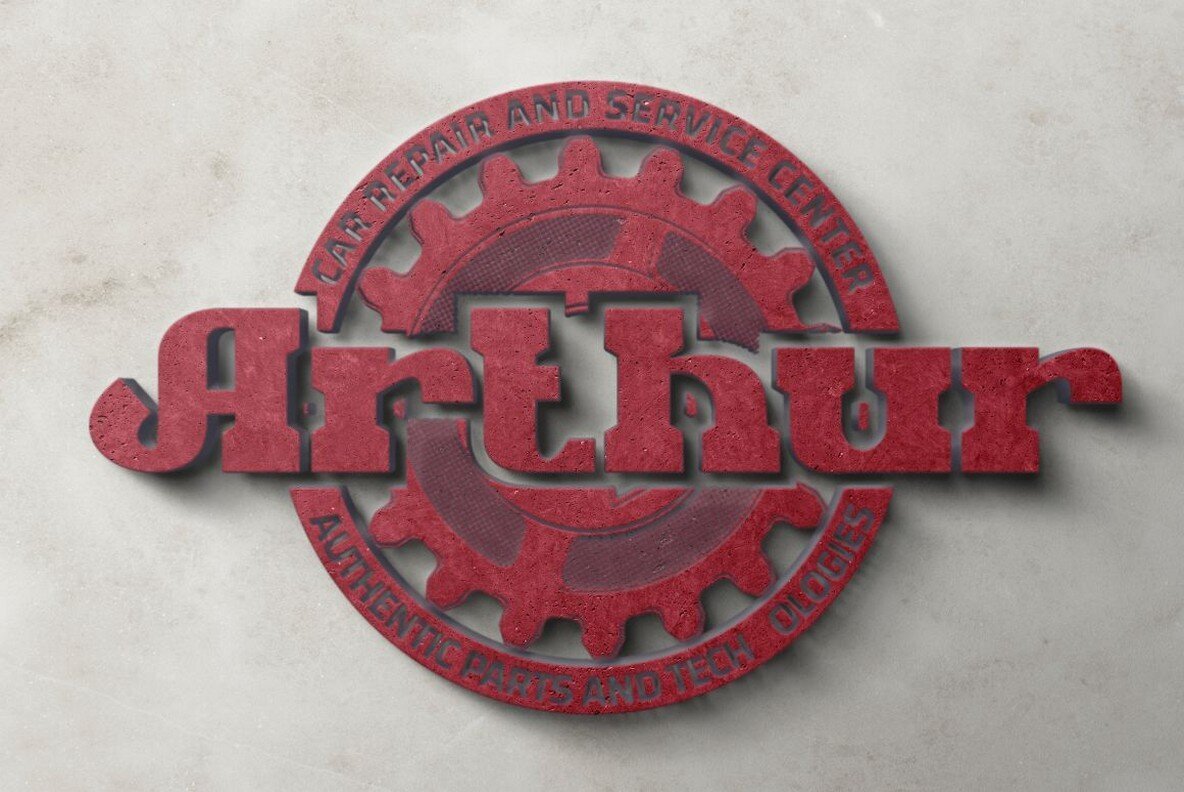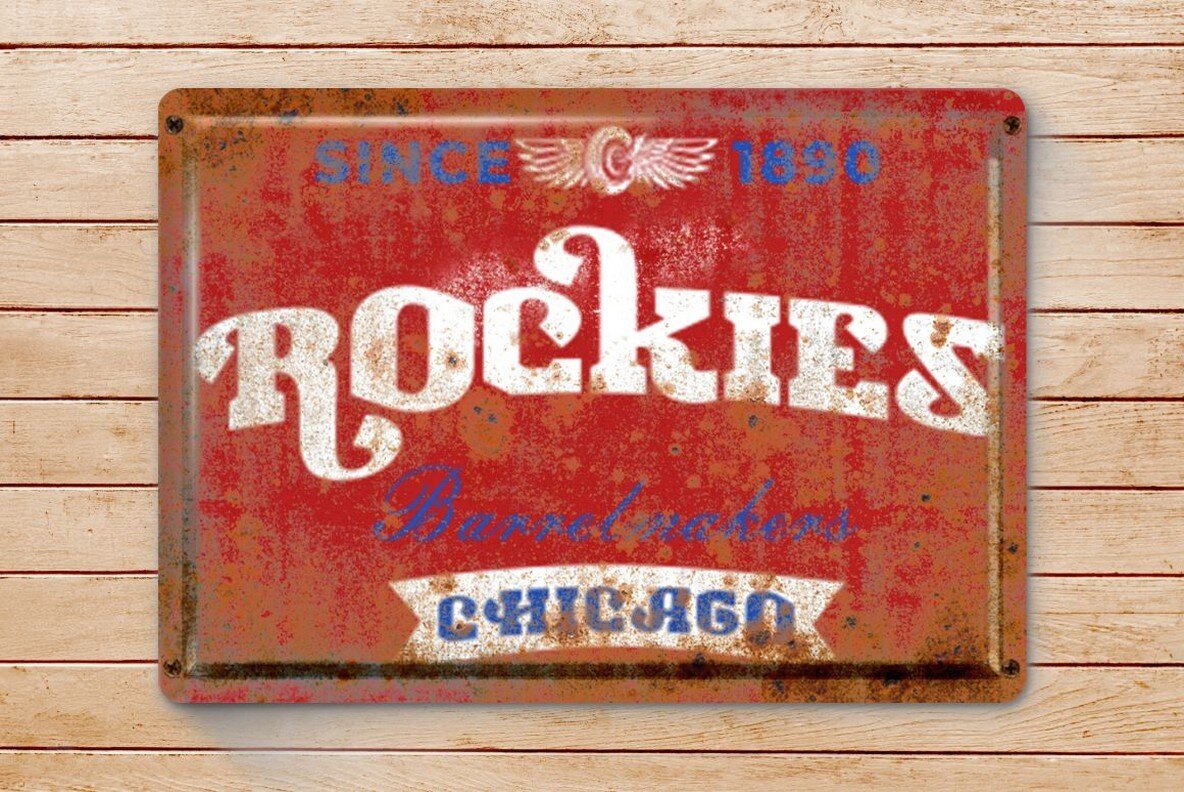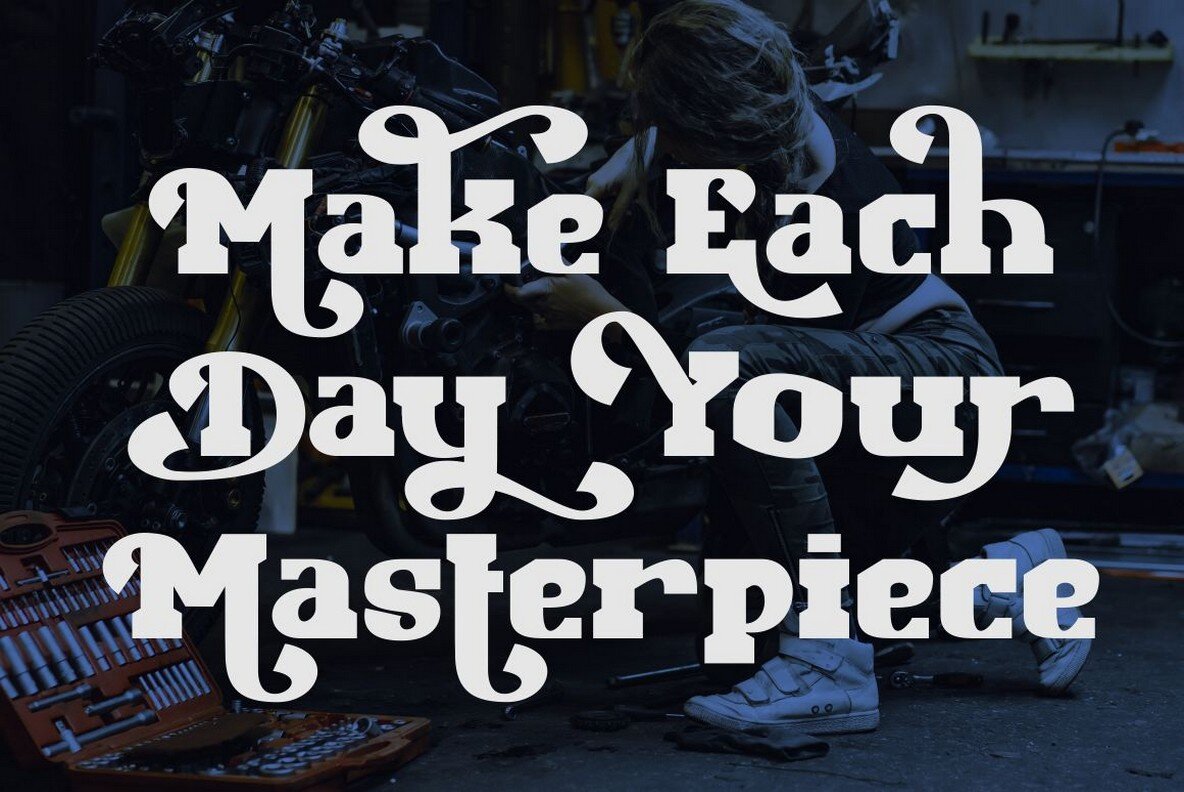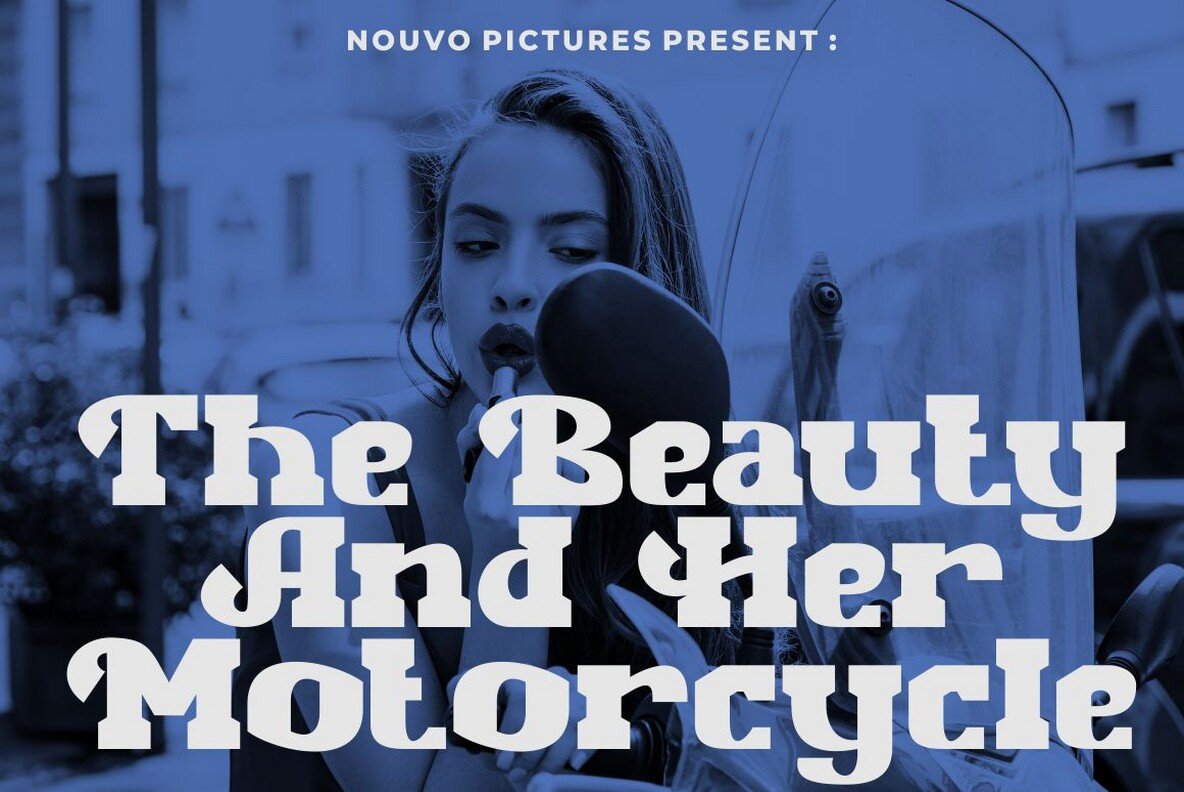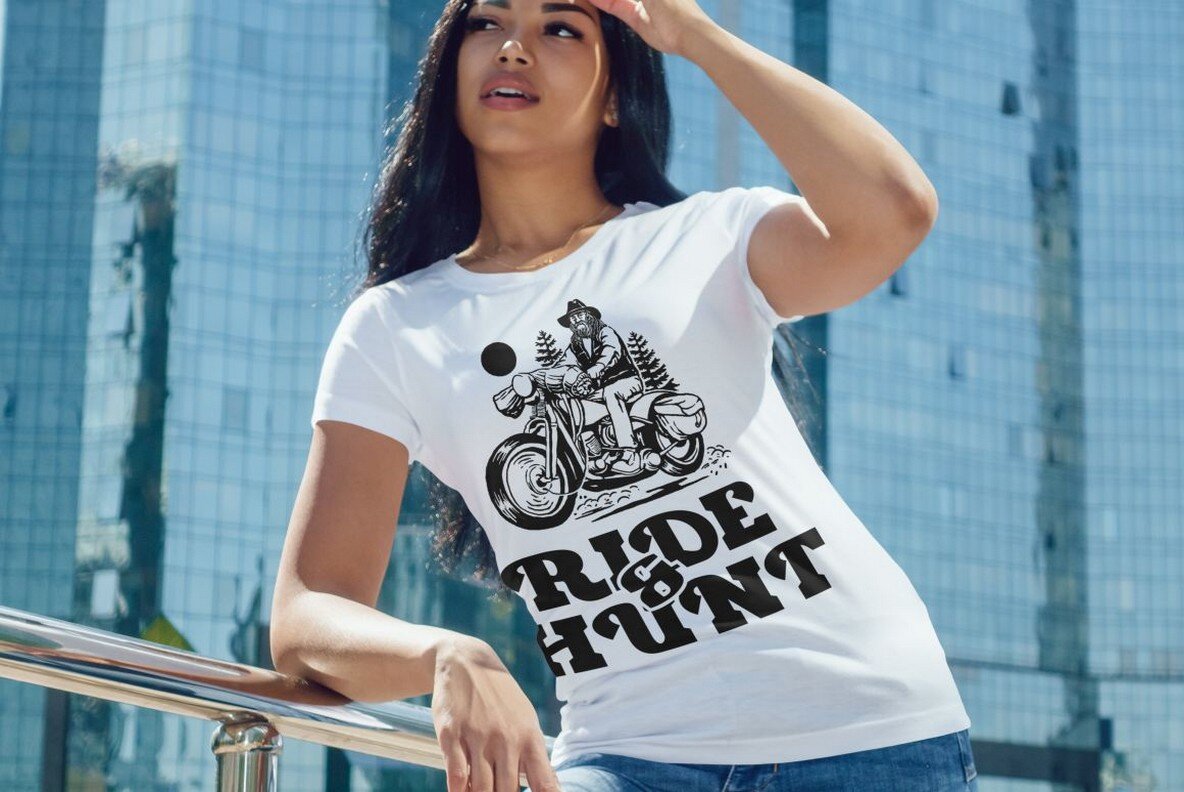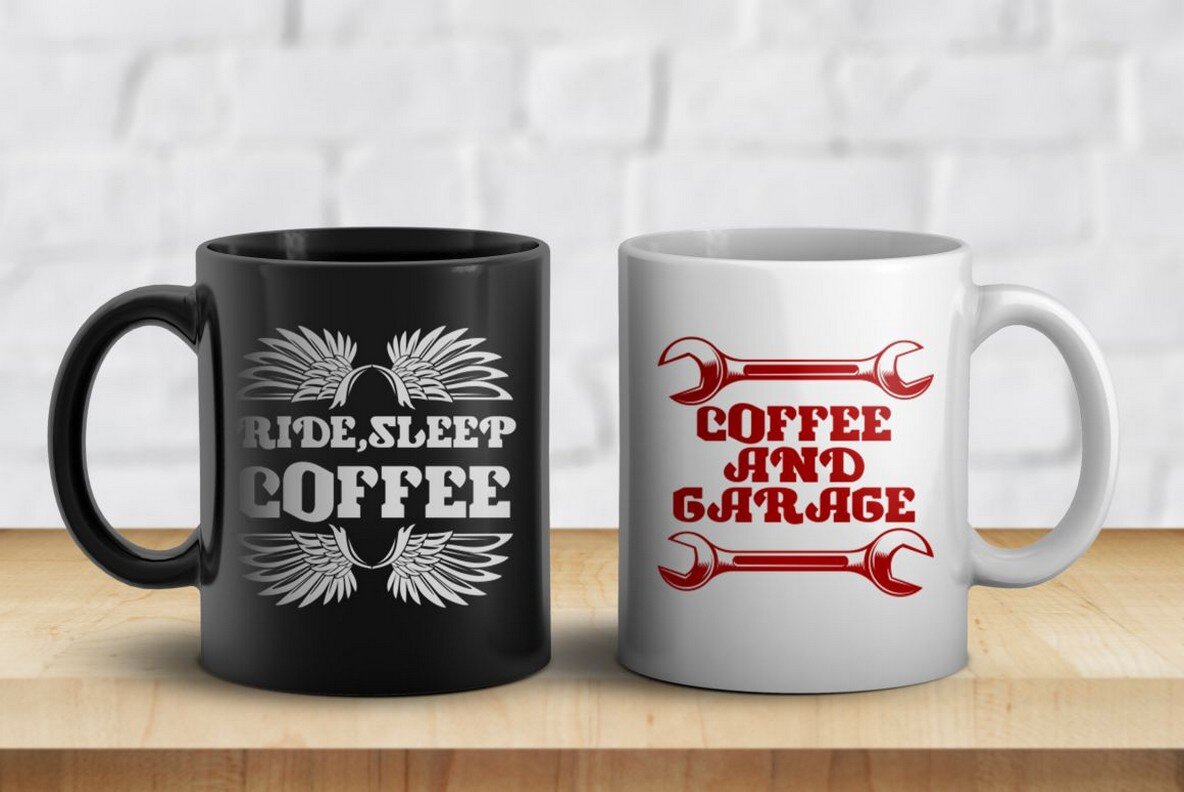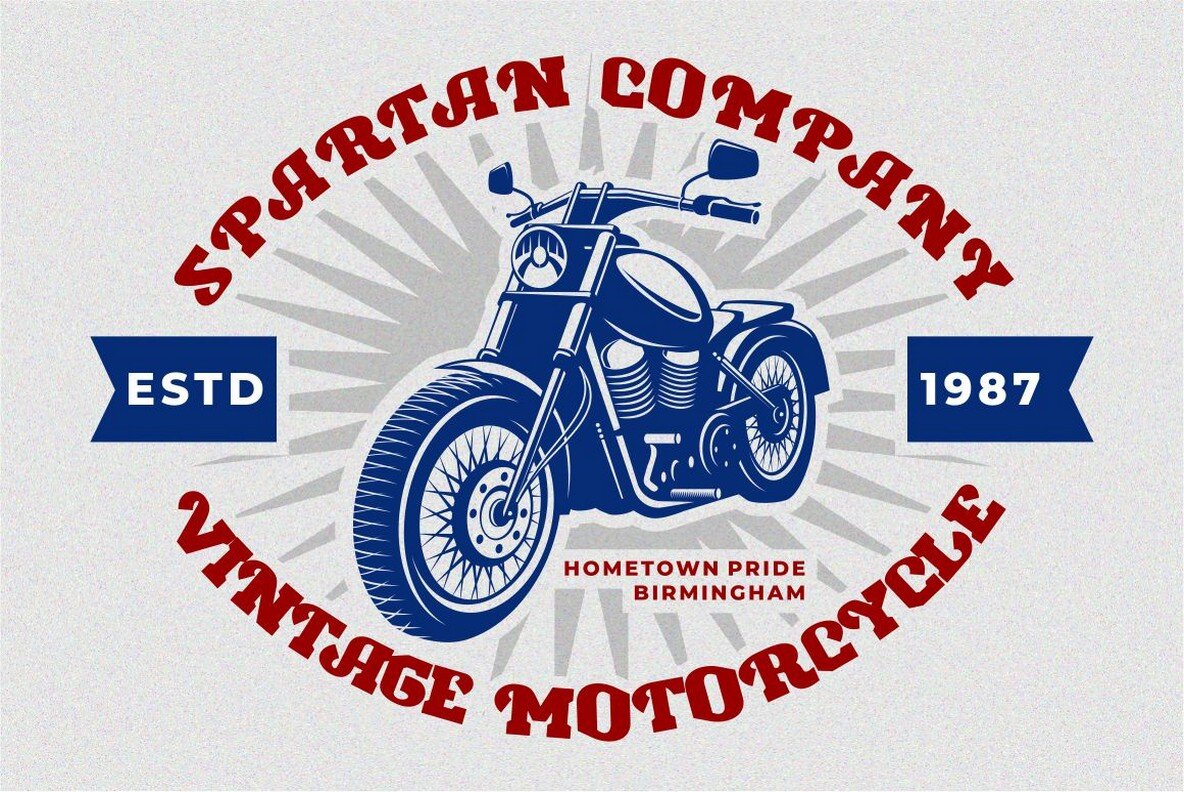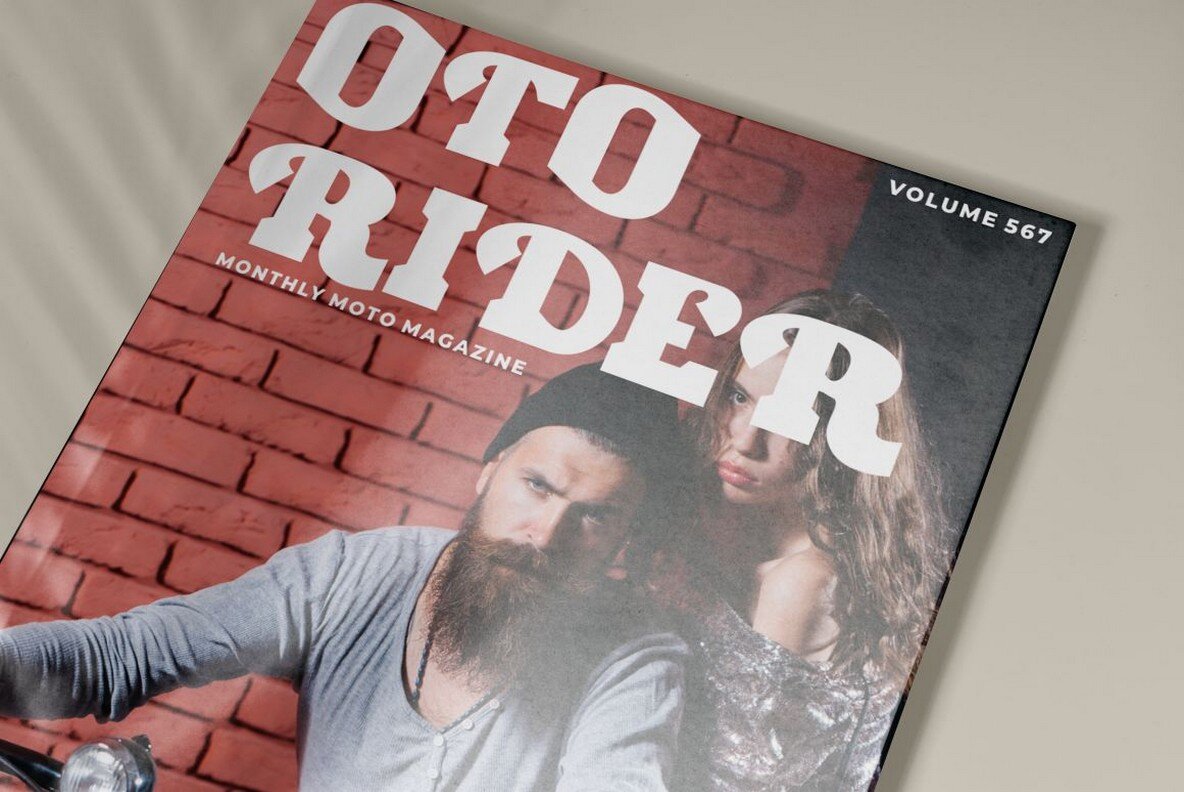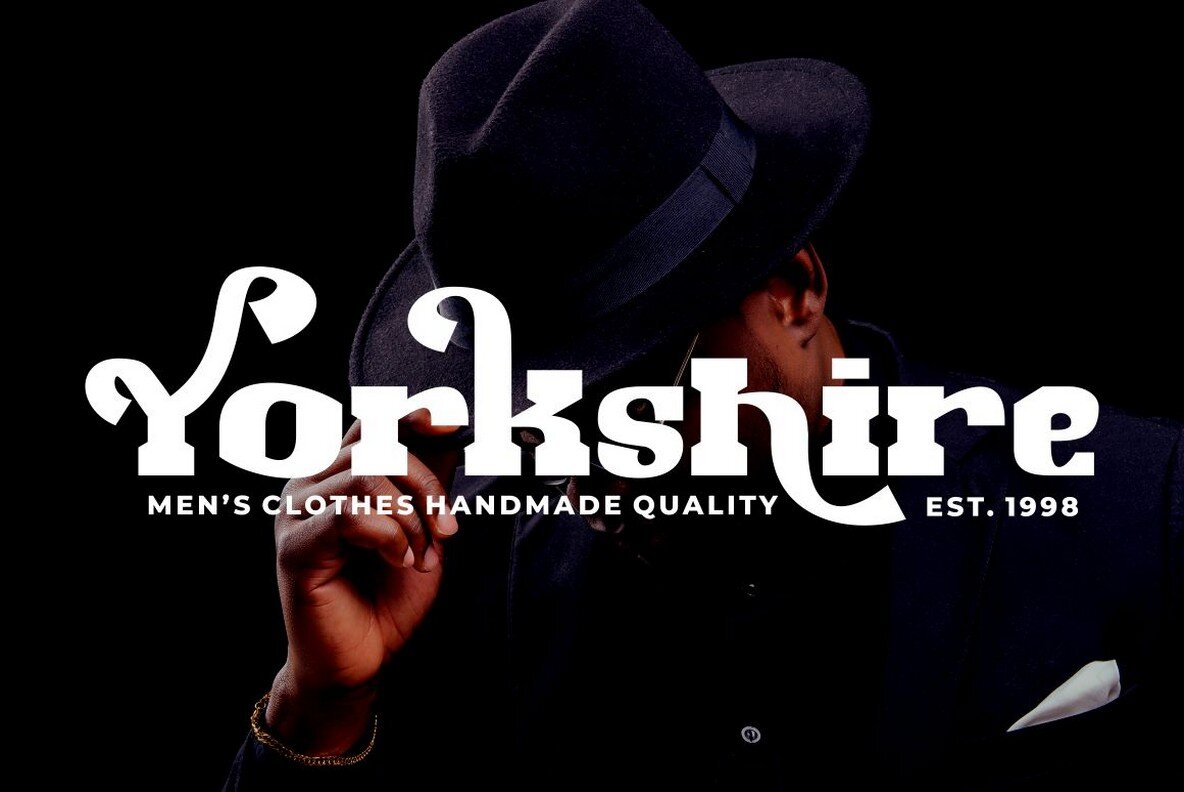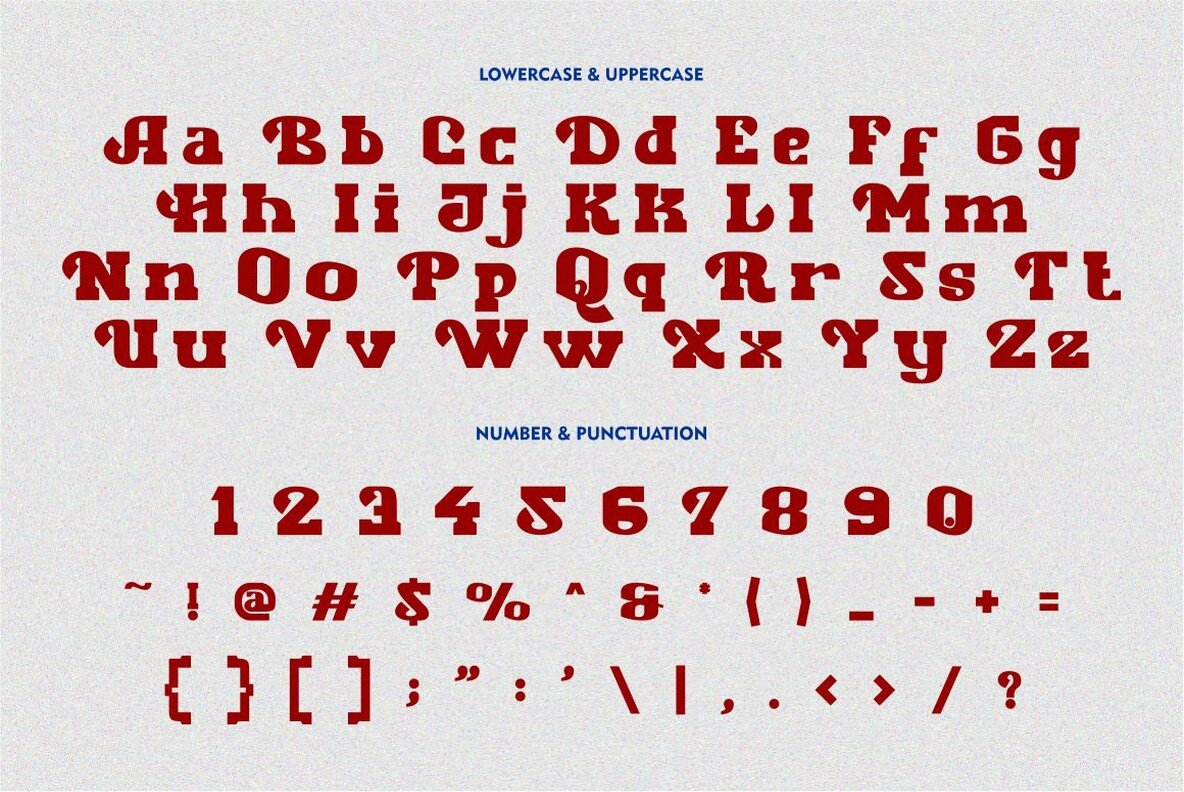
Small Heath Font
Small Heath Regular
Small Heath Stamp
Small Heath offers a distinctive slab serif style inspired by vintage American posters while remaining adaptable for modern design needs. Its unique character construction provides a flexible and visually appealing addition to diverse projects, ensuring each character stands out. Features: Ideally suited for titles, invitations, headings, covers, posters, and logos, Small Heath also enhances products such as packaging, merchandise, and greeting cards. OpenType features available across various design software, from Adobe Illustrator to Microsoft Word, enable enriched typographic effects tailored to your creative vision.Small Heath: A Versatile Slab Serif with Vintage Flair